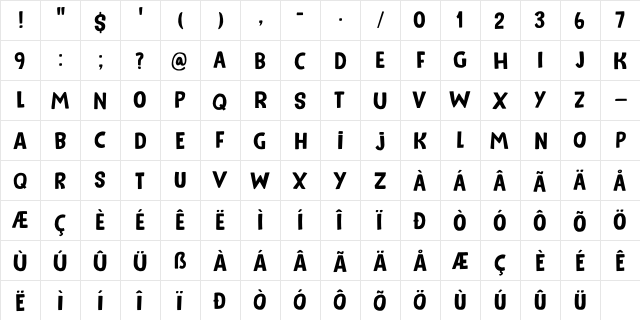
Reality Check II DEMO Regular
| Foundry | David Kerkhoff |
| Designer | David Kerkhoff |
Design Context for Reality Check II DEMO Typeface
Reality Check II DEMO takes a measured approach to typography — its balanced proportions and neutral character make it a reliable workhorse for both digital and print work.